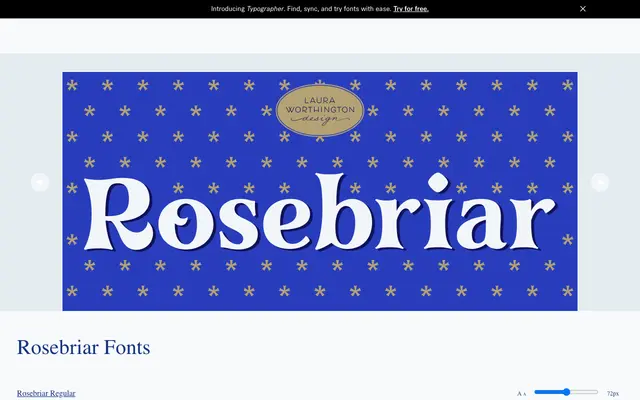
Rosebriar
A single-weight display face that grafts gothic ornamental details onto a roman skeleton, producing something that can read medieval, storybook or simply crafted depending on context.
Wedge cross strokes, splayed terminals and diamond-shaped tittles give Rosebriar a foliate, handcrafted quality without committing fully to blackletter. The roman foundation keeps it legible at titling sizes, and stylistic alternates add flexibility for headlines, subheadings and short callouts. Latin Extended coverage spans more than two dozen languages including Czech, Polish and Turkish.
Rosebriar is a decorative display typeface built on a roman structure but enriched with gothic ornamental details such as wedge cross strokes, splayed terminals and diamond-shaped tittles, placing it firmly in the ornamental display category with a gothic-foliate subcategory.